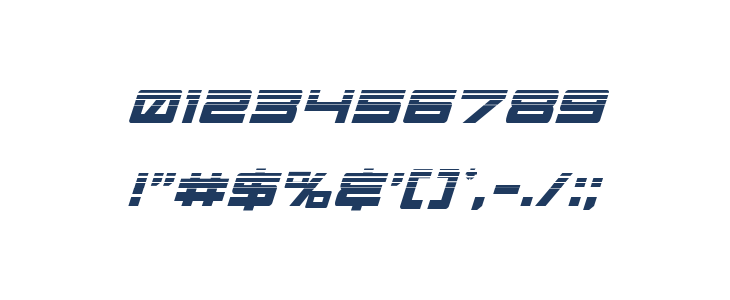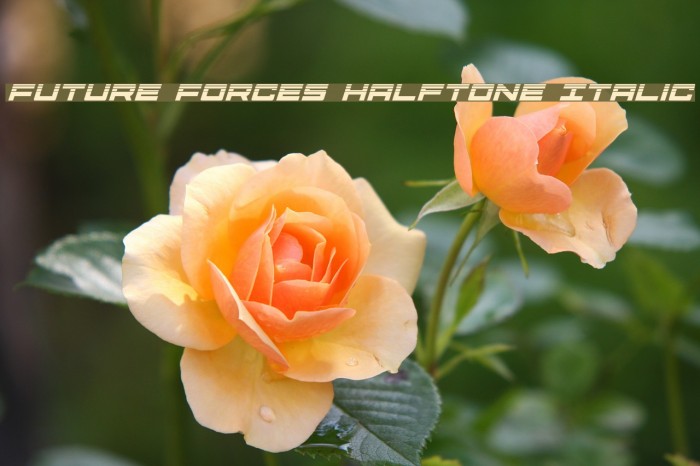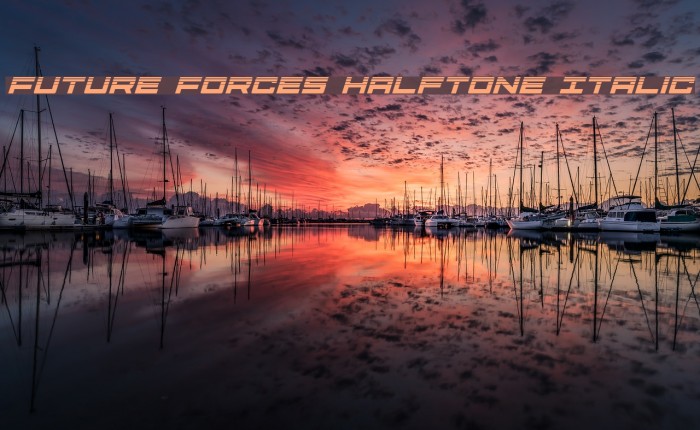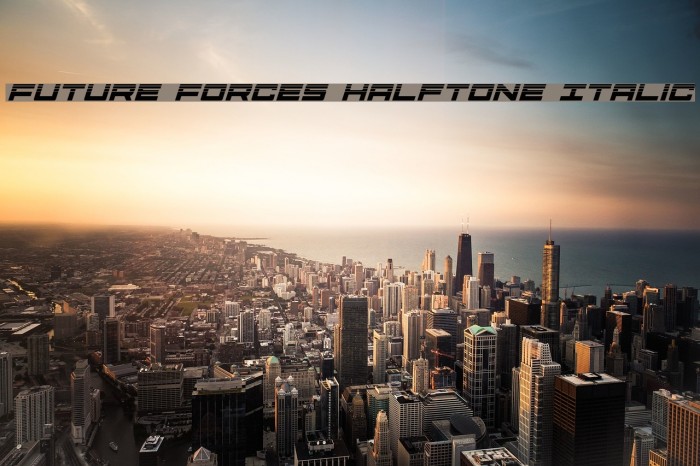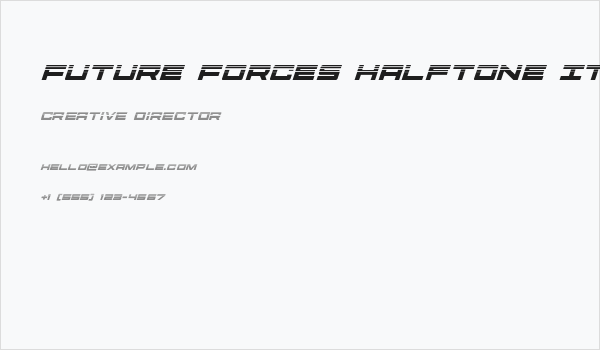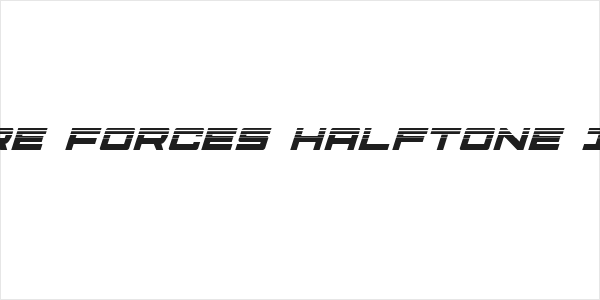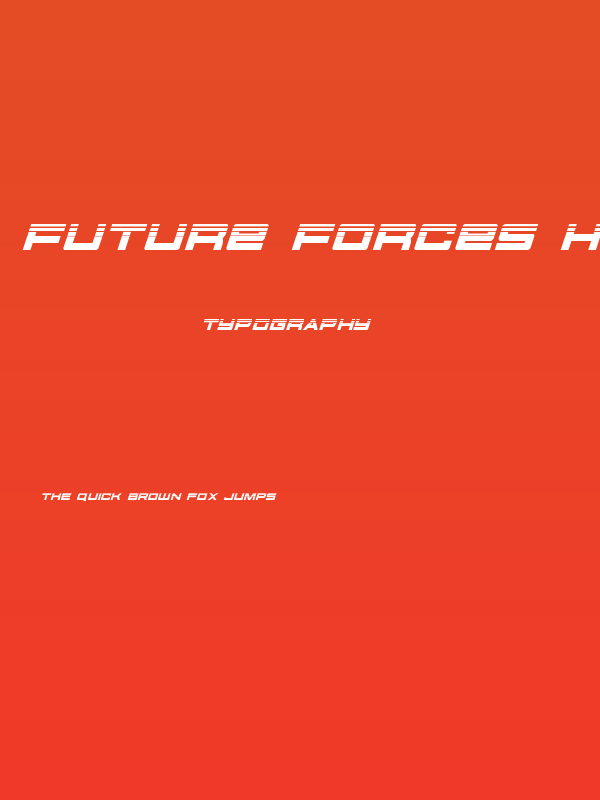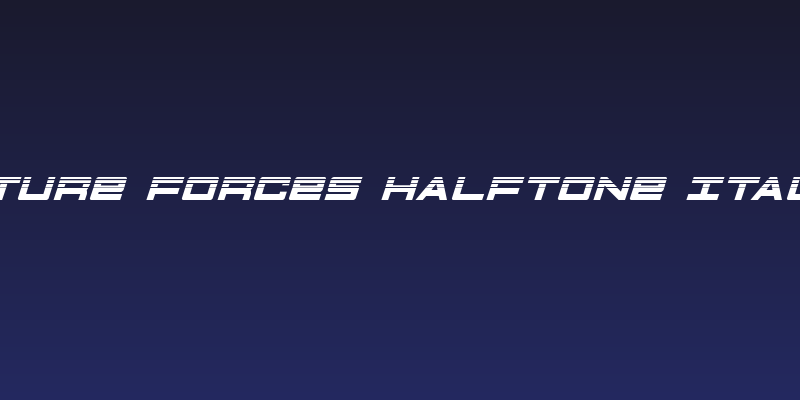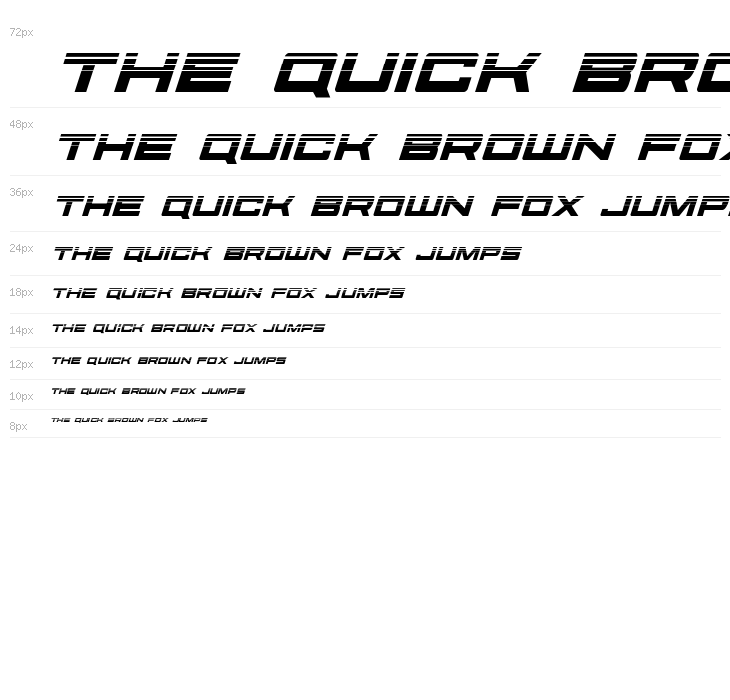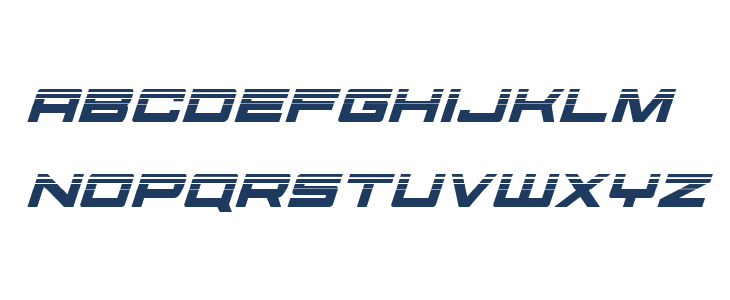
Future Forces Halftone Italic Font
Future Forces Halftone Italic Description
This font features a futuristic and dynamic design with a halftone effect that gives it a unique, digital appearance. The italicized style adds a sense of motion and speed, making it ideal for projects that require a modern and edgy look. The characters are bold and angular, with a consistent slant that enhances the overall aesthetic. The uppercase and lowercase letters maintain a uniform style, while the numerals and special characters complement the font's distinctive design. The halftone pattern within each character adds depth and texture, making it stand out in any application.
| Proposed Projects | Ideal for sci-fi themed designs, video game titles, tech branding, and futuristic posters. |